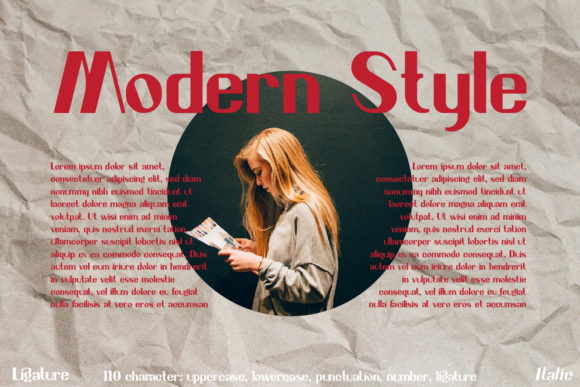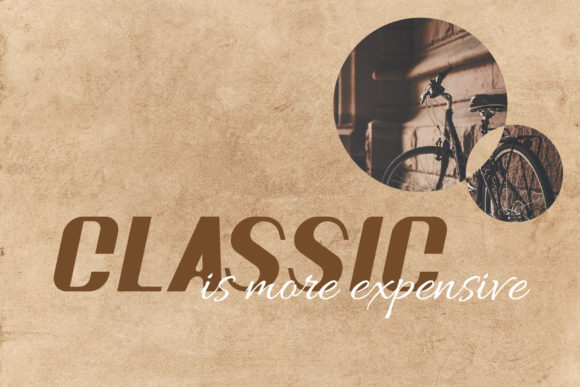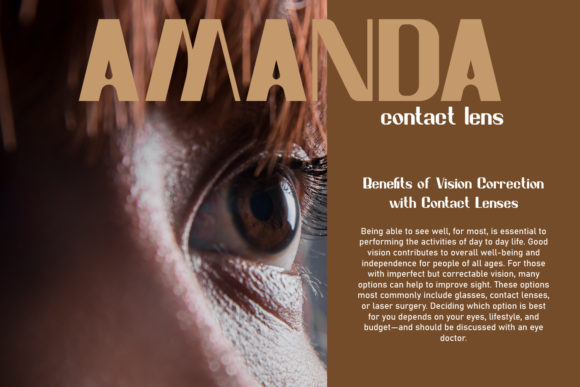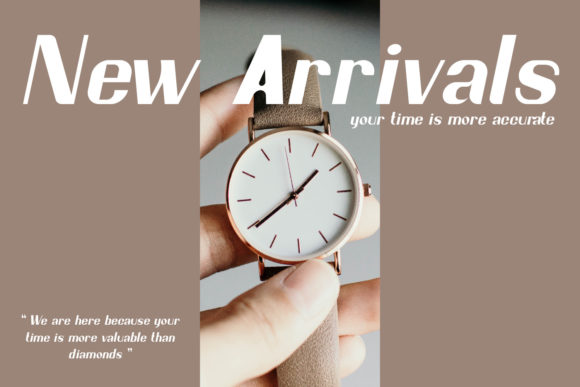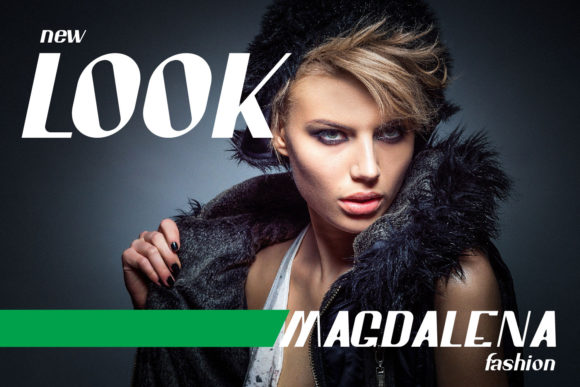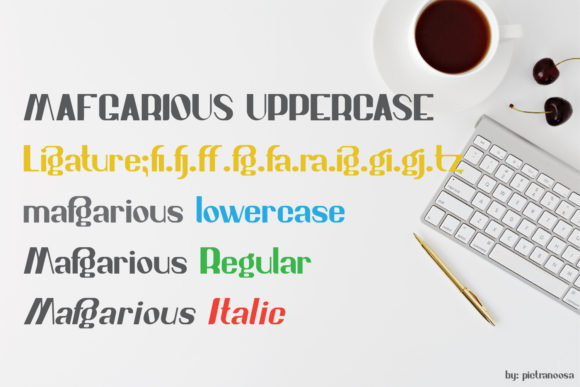
Introduction to Mafgarious Font
Mafgarious is a beautiful sans serif font carefully crafted to give your designs a bold and optimistic look.
It is perfect for the title or body of an article or a magazine cover Add it to your work, and it will make your designs unique and outstanding.
Key Features of Mafgarious Font